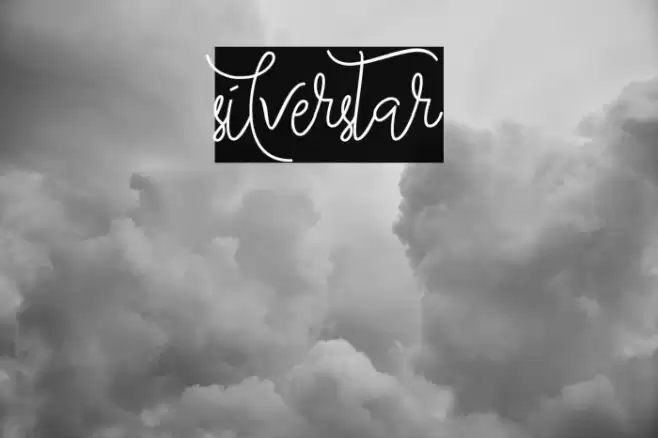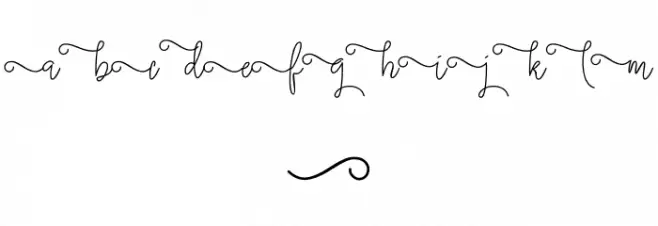
silverstar Font
silverstar Description
This font features an elegant and flowing script style, characterized by its intricate swirls and loops that give it a sophisticated and artistic appearance. The letters are connected in a fluid manner, creating a seamless and harmonious look. The uppercase letters are particularly ornate, with elaborate flourishes that add a touch of grandeur. The lowercase letters maintain a consistent style, with gentle curves and a graceful demeanor. This font exudes a sense of elegance and refinement, making it suitable for formal and decorative purposes.
An elegant, flowing script font with intricate swirls and loops from Uncategorized fonts.
- Proposed Projects: Ideal for wedding invitations, greeting cards, branding, and decorative projects.
- Use Case: Logos, Invitations, Decorative text